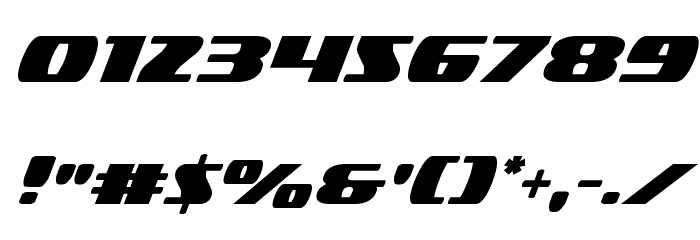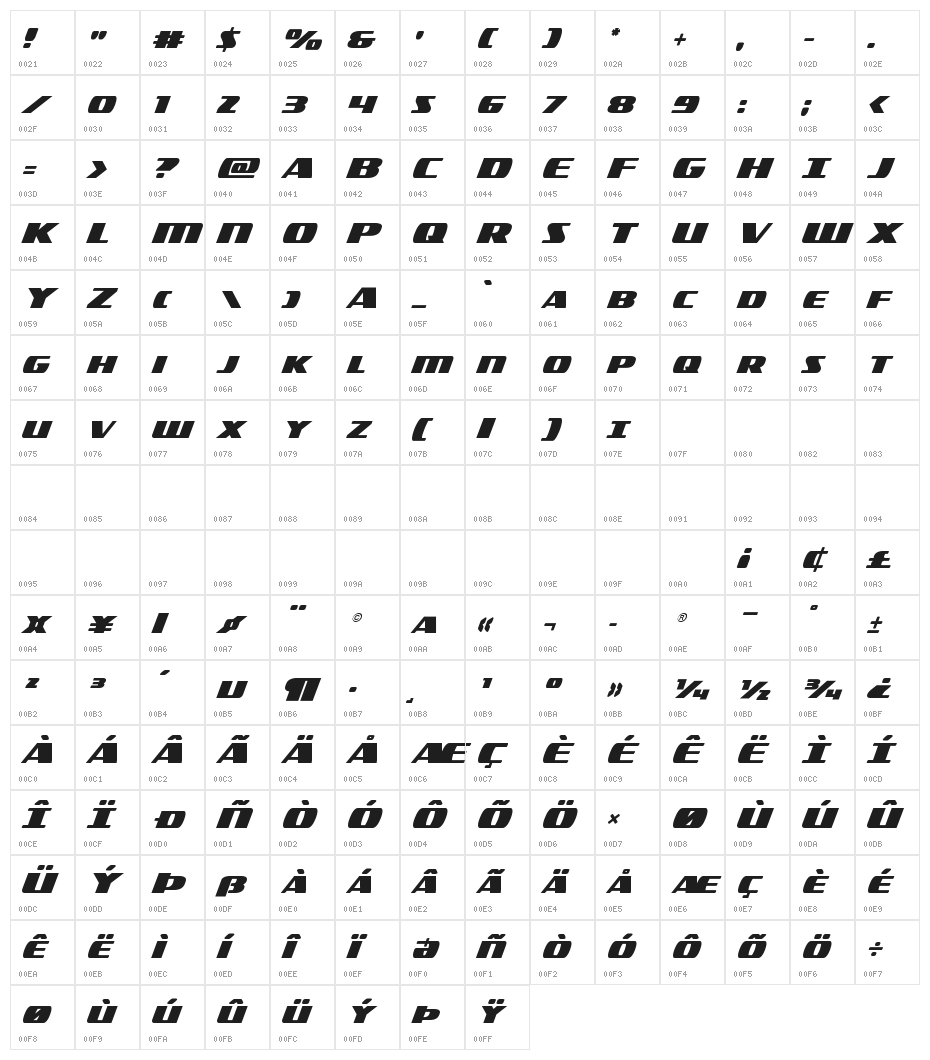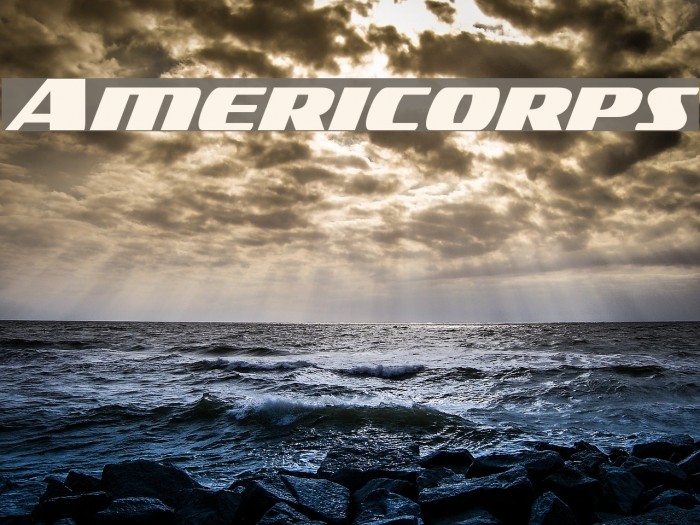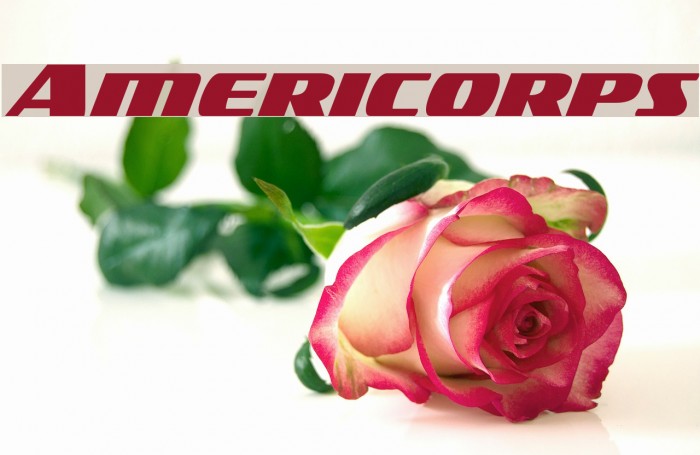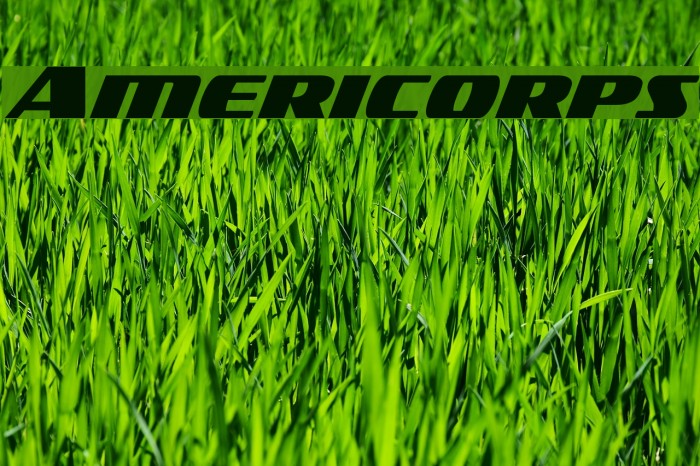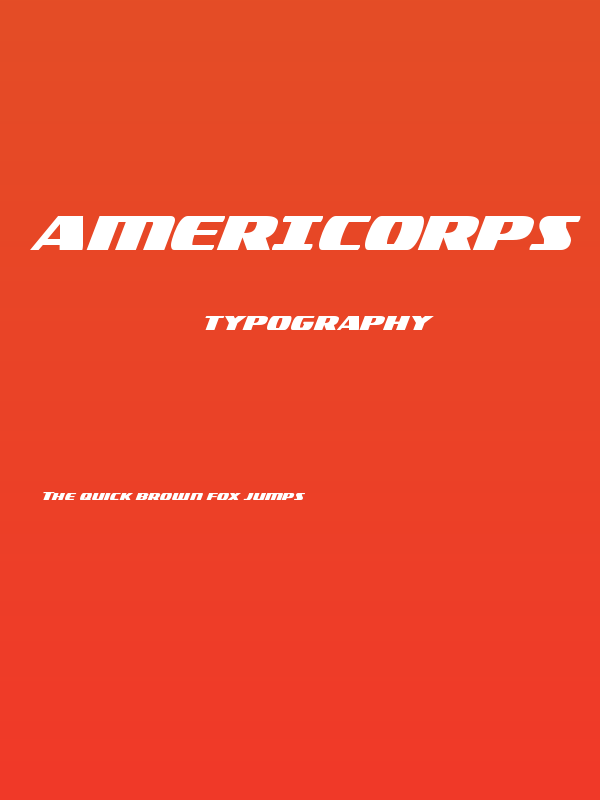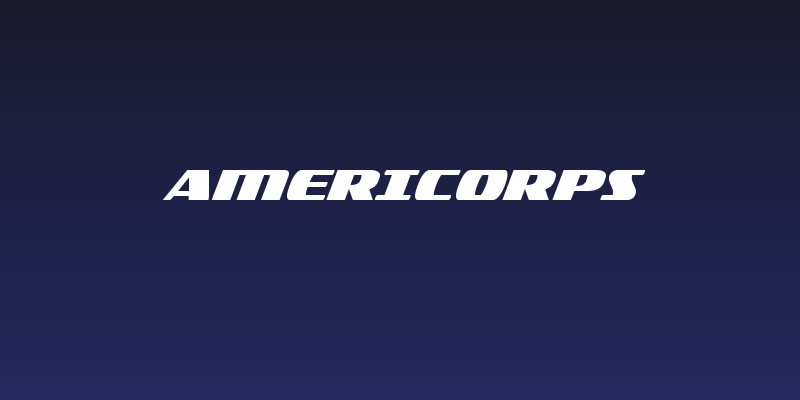
Americorps Font
Americorps Description
This font exhibits a bold and dynamic style with a strong presence. The characters are slanted, giving a sense of movement and speed. The strokes are thick and consistent, providing a robust and impactful appearance. The uppercase and lowercase letters maintain a uniform width, contributing to a cohesive look. The numbers and special characters follow the same design principles, ensuring versatility across different uses. The font's angular edges and sharp lines add a modern and edgy feel, making it suitable for attention-grabbing designs.